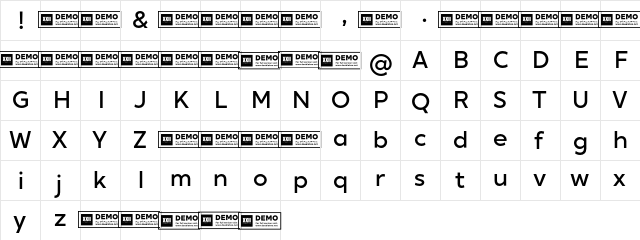
XXII Geom DEMO Medium
| Foundry | Doubletwo Studios |
| Designer | Lecter Johnson |
Design Context for XXII Geom DEMO Typeface
XXII Geom DEMO offers clean, dependable letterforms without strong stylistic allegiance, making it a practical choice for designers who need flexibility.